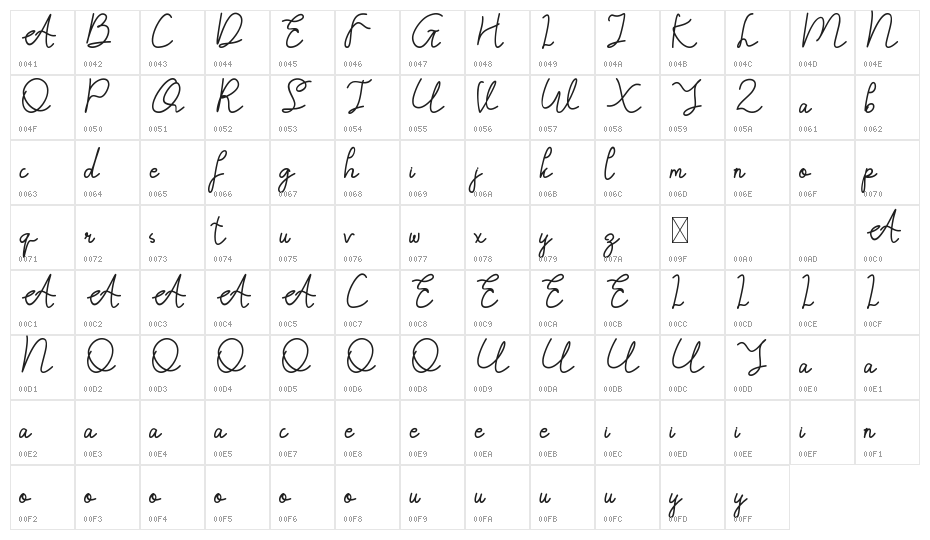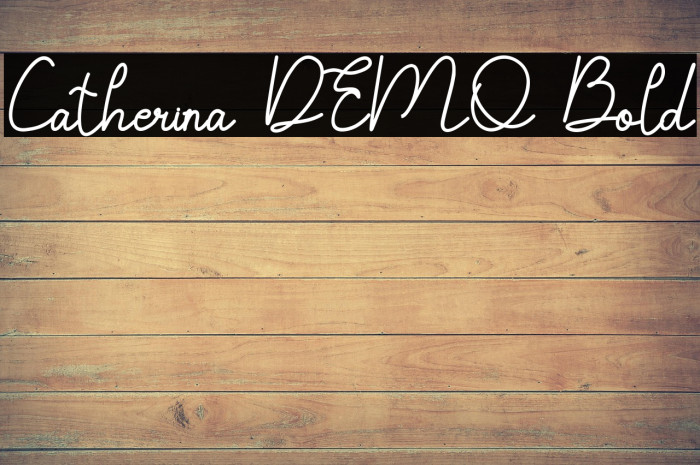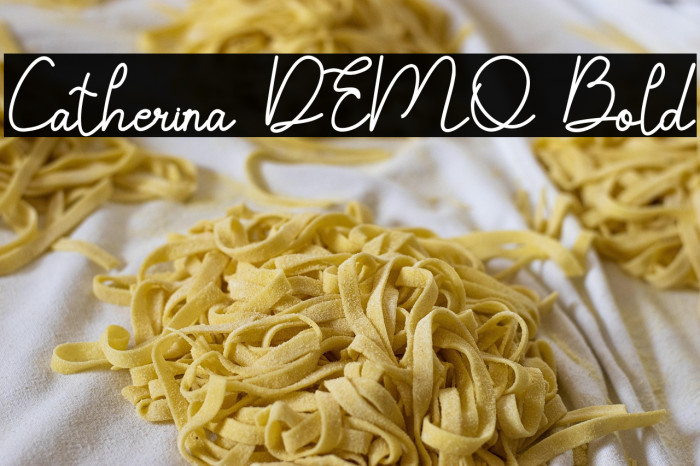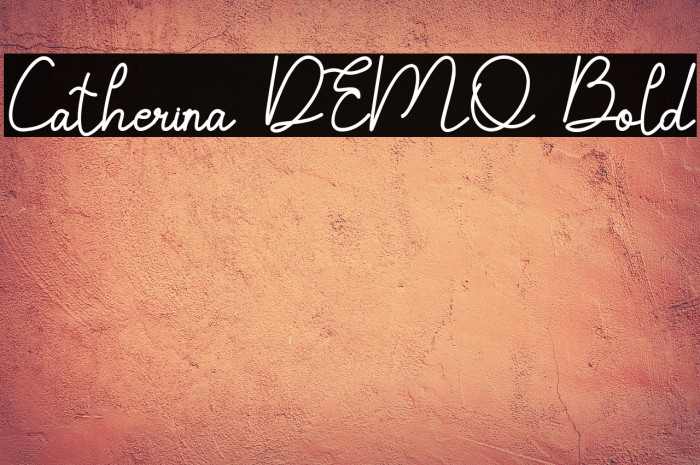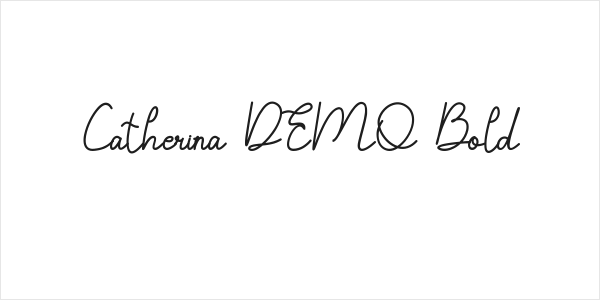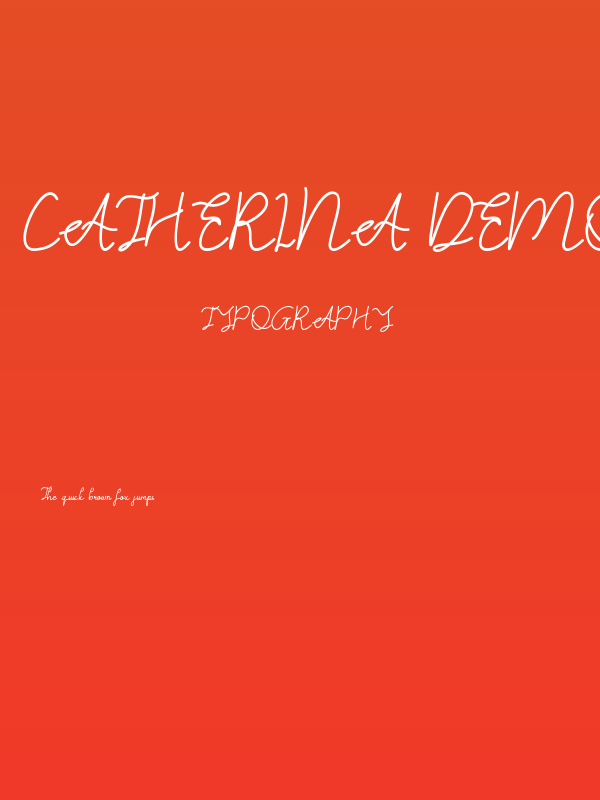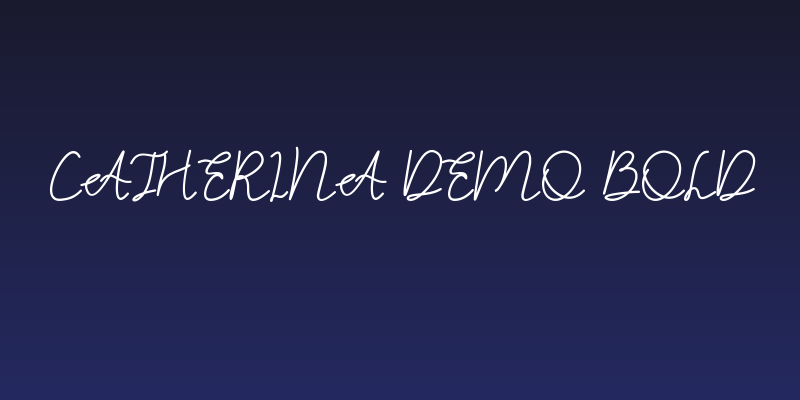
Catherina DEMO Bold Font
Catherina DEMO Bold Description
This font exhibits a flowing, cursive style with elegant, interconnected letters that mimic natural handwriting. The strokes are smooth and consistent, creating a harmonious and fluid appearance. The uppercase and lowercase letters maintain a cohesive design, with slightly exaggerated loops and curves that add a touch of sophistication. The font's overall aesthetic is both graceful and dynamic, making it suitable for projects that require a personal and artistic touch. The characters are well-balanced, ensuring readability while maintaining an artistic flair.
| Overall Style | Elegant, Artistic |
| Proposed Projects | Ideal for wedding invitations, greeting cards, personal branding, and artistic projects that require a touch of elegance and sophistication. |